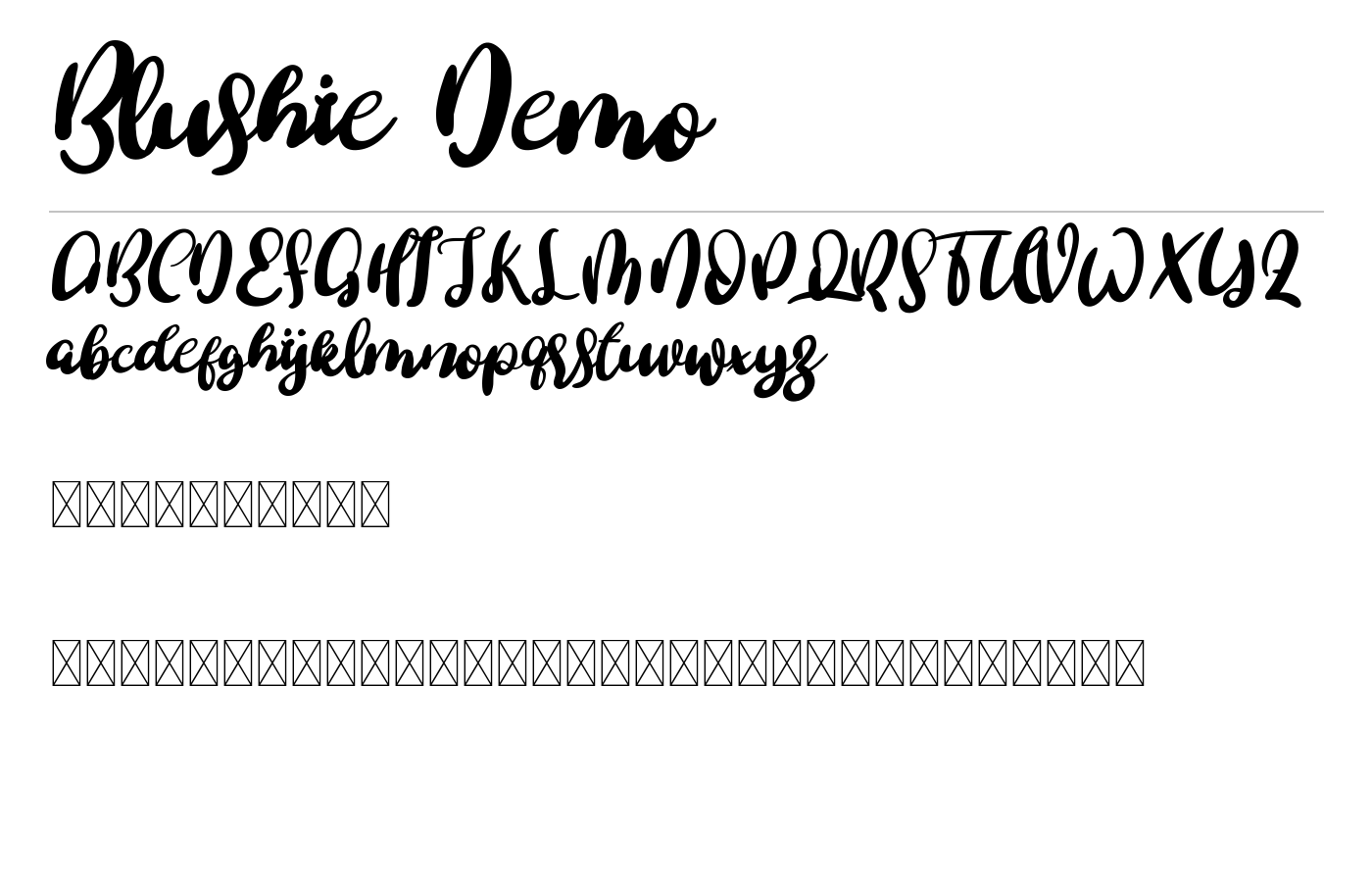
Blushie Demo is a charming, bold script font with a lively, hand-drawn style that combines thick, smooth strokes and playful letterforms. Its casual yet confident look makes it perfect for creative branding, invitations, and headlines where a friendly, energetic vibe is desired. This font shines in designs that want to convey warmth and a personalized touch.
Blushie Demo Font
About Blushie Demo Font